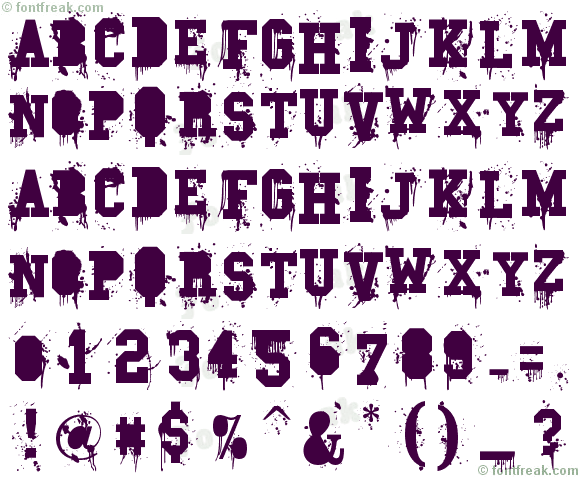
Carnage College
About Carnage College
Carnage College is a striking display typeface designed by woodcutter Manero that captures attention with its bold and edgy aesthetic. This font falls into the decorative category, making it an excellent choice for projects that require a unique and memorable visual impact. The design features a heavy stroke weight with a rugged texture, reminiscent of urban graffiti, and it incorporates decorative elements such as drips and splatters that add a sense of chaos and energy. The spacing is well-considered, allowing for readability while maintaining a strong visual presence.
This font is particularly suited for a variety of creative applications. It works exceptionally well for movie posters, where its dramatic flair can enhance the theme of action or horror. Additionally, it can elevate the design of merchandise for music events, especially in genres that embrace bold and rebellious styles. Restaurant menus that aim for a gritty, modern vibe can also benefit from the Carnage College font, providing an eye-catching appeal. Moreover, graphic designers can leverage this typeface in branding projects that aim to communicate a youthful or avant-garde image.
Target audiences for the Carnage College font include graphic designers, small business owners, and content creators seeking to make a statement. This font offers them a tool to express creativity and stand out in a crowded marketplace.